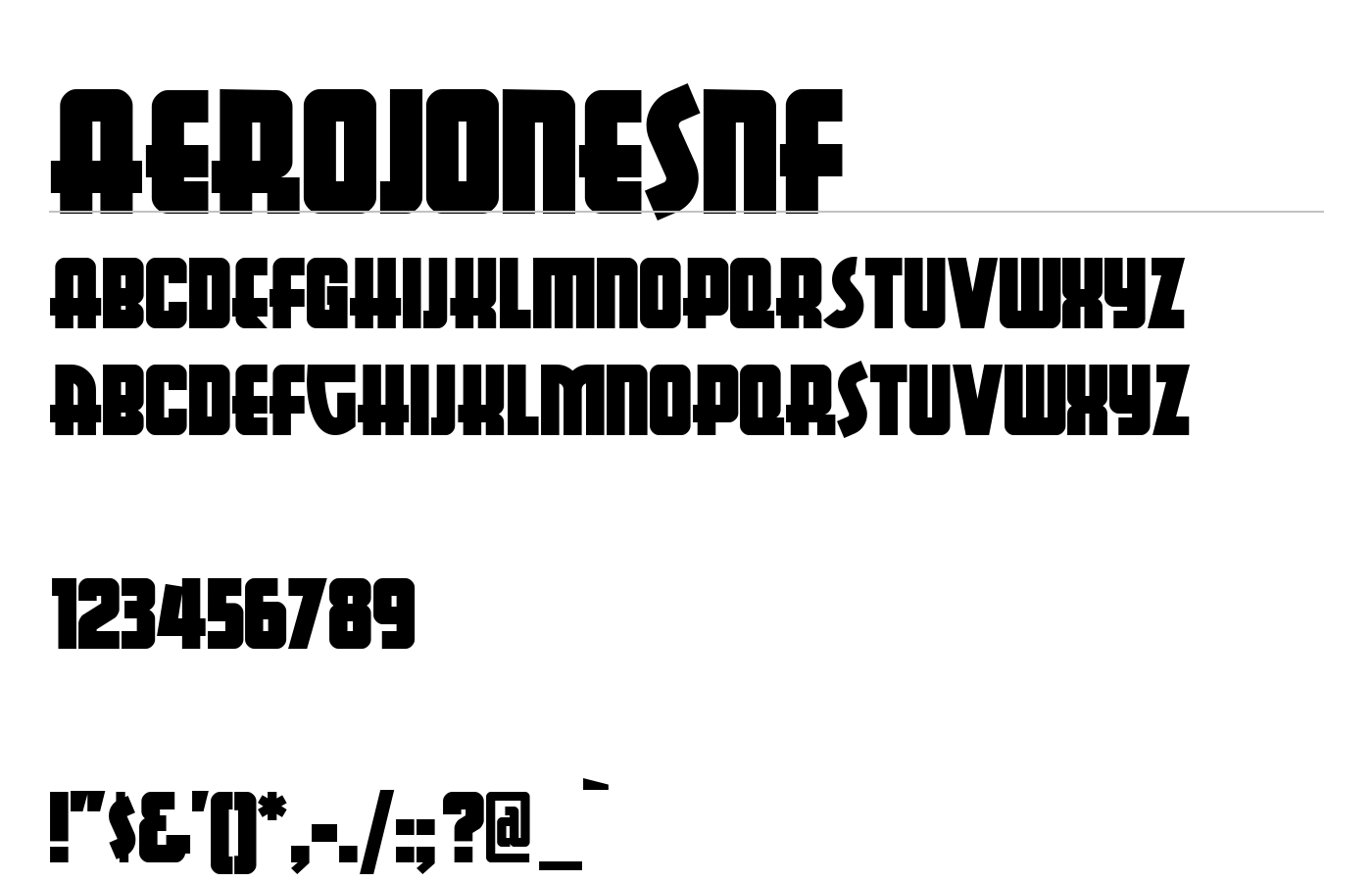
AerojonesNF is a bold, condensed sans serif font with a strong geometric feel and unique, sharp angled cuts in some letters that add a dynamic, futuristic edge. Its heavy weight and tight spacing give it a powerful, impactful presence, making it ideal for striking headlines, logos, or branding that wants to convey strength and modernity. This font works best in display settings where attention-grabbing, contemporary style is key.
AerojonesNF Font
About AerojonesNF Font